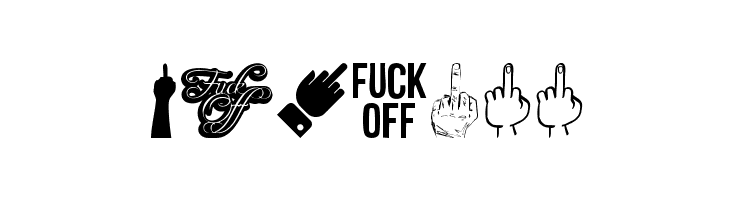
A bold, modern font with tall, condensed characters and consistent stroke width.
A playful, handwritten font with flowing, cursive-like strokes and a modern aesthetic.
A whimsical and decorative font with a playful, hand-drawn style.
Bold, graffiti-inspired display font with rough, expressive letterforms.